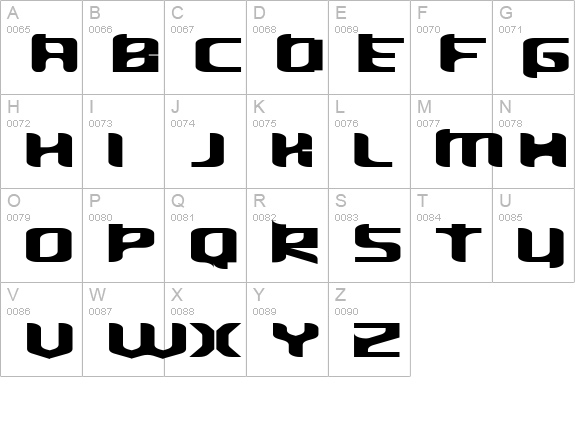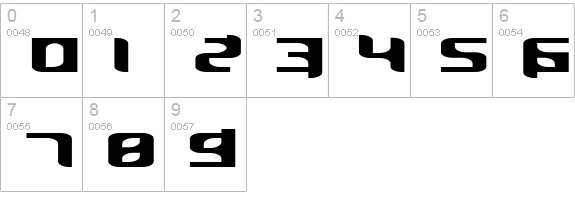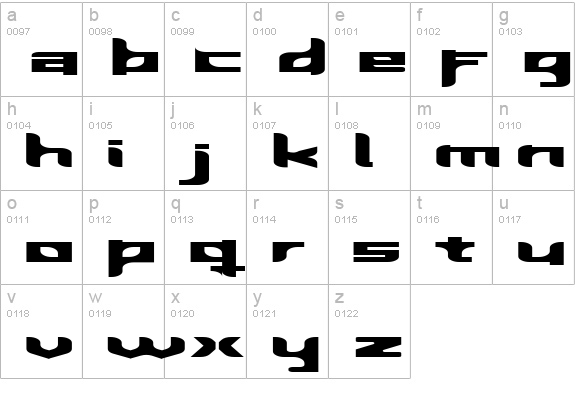
InavelMutant Font Details
Introducing InavelMutant, a truly unique font that pushes the boundaries of typographic design. This avant-garde typeface is a perfect blend of elegance and eccentricity, making it the ideal choice for those seeking to make a bold statement. InavelMutant's distinct and captivating characters are meticulously crafted with intricate details and unconventional shapes, resulting in a visually striking and unconventional aesthetic. Each letter carries an air of mystery and intrigue, inviting the viewer to explore its unconventional forms and discover their own interpretation. But what truly sets InavelMutant apart is that it is not only a visually stunning font, but it is also free. That's right, absolutely free. Now you can elevate your designs and projects without any cost or restrictions. InavelMutant is freely available to download at FontsMarket.com, ensuring that everyone can access this extraordinary font and unleash their creativity without limitations. Whether you're designing a logo, creating a poster, or crafting a unique website, InavelMutant is the perfect choice to make your work stand out from the crowd. Its unconventional yet captivating charm will captivate your audience and leave a lasting impression. So, if you're ready to break free from the conventional and explore the uncharted territory of typography, look no further than InavelMutant. Download it for free at FontsMarket.com and let your imagination run wild. Embrace the uniqueness, embrace the eccentricity, and let InavelMutant be your creative companion on this exciting journey of design exploration.